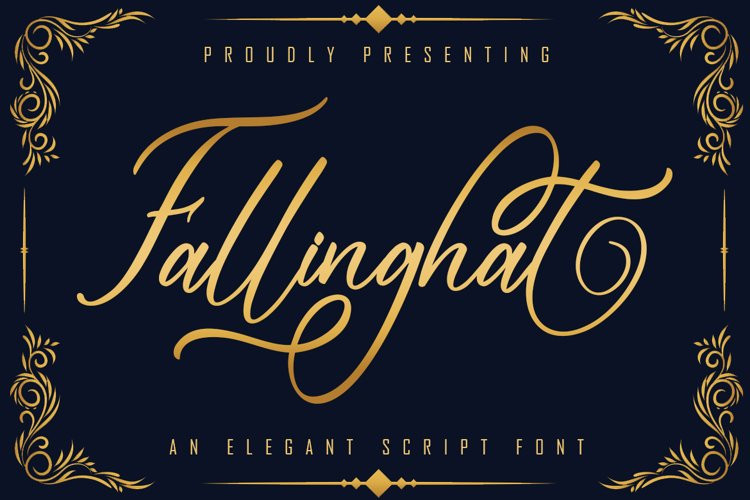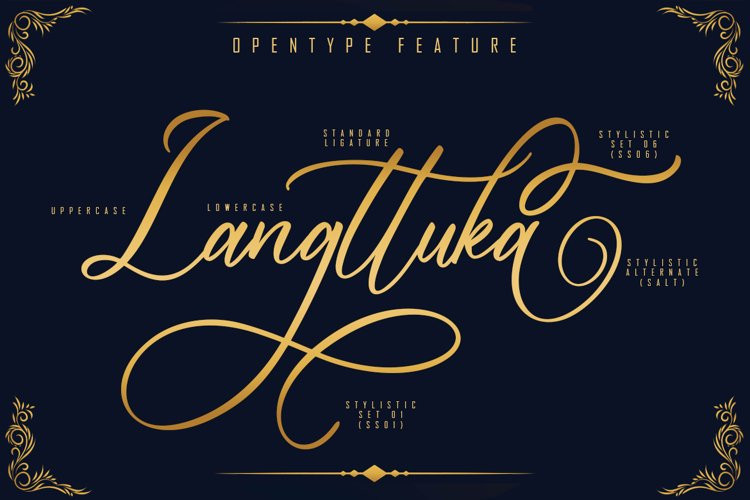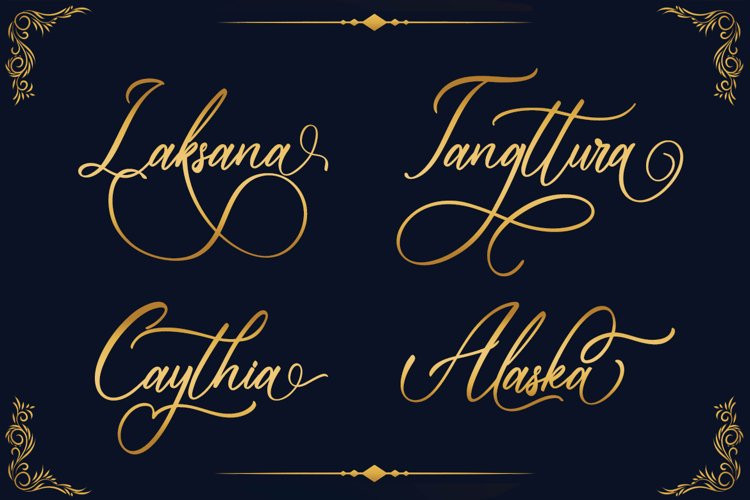
Fallinghat Font
Fallinghat FontFallinghat An Elegant Script and beautiful handwritten script font, suitable for the promotion of your product and helps design your writing to be more attractive and also this font is neatly arranged and modern